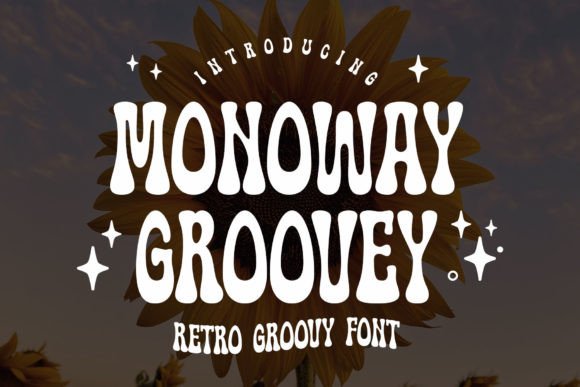
Are you ready to take a trip back in time to the vibrant and groovy era of the 70s? Look no further than our latest font creation, the "Monoway Groovey" font! Inspired by the iconic pop art and design trends of that era, this font is guaranteed to bring a dynamic and lovely impression to your designs.
With its stunning shape based on curves, the Monoway Groovey font captures the essence of the 70s like no other. It adds a touch of playfulness and nostalgia to any project, making it the perfect choice for themes ranging from retro to modern-vintage.
Imagine creating a t-shirt that instantly transports the wearer to the disco-drenched dance floors of Studio 54. Picture a poster that exudes the vibrant energy of a groovy concert in the heyday of rock and roll. Envision a flyer that catches the eye and ignites the imagination with its retro charm. Monoway Groovey font can make all of these possibilities a reality.
But that's not all! This font is not just about looks, it's also about functionality. Whether you're designing a label for a trendy product, crafting a branding identity that stands out from the crowd, creating a logo that leaves a lasting impression, or even adding a stylish quote to your social media posts, Monoway Groovey font is the ideal choice.
And let's not forget about versatility. The Monoway Groovey font is supported by multilingual characters, allowing you to reach a global audience with ease. So whether you want to capture the attention of English speakers, or make a statement in languages from around the world, this font has got you covered.
Created by the talented minds at Arterfak Project, the Monoway Groovey font is a true masterpiece that combines the best of the past with the demands of the present. It's time to embrace the retro revolution and let your designs shine with this captivating font.